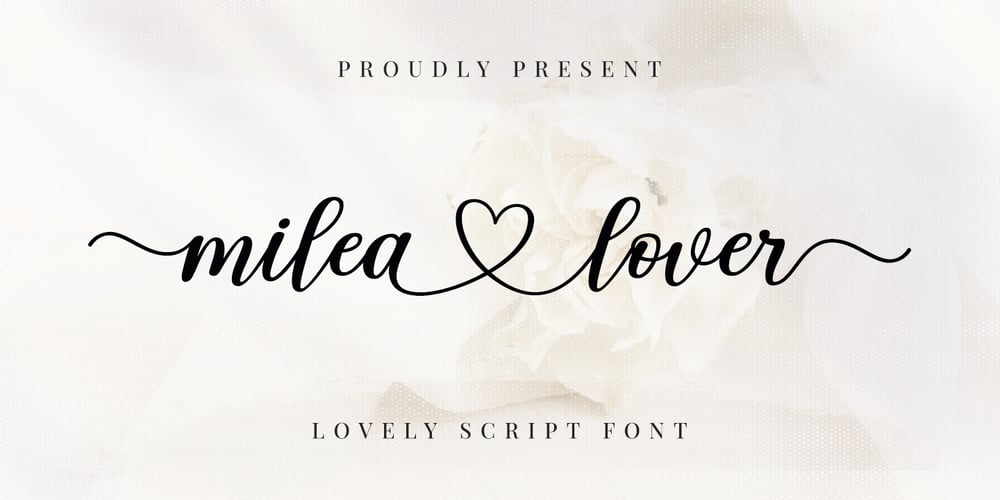
Milea lover Font Family was designed by M Akmal and published by Mega Type. Milea lover contains 1 styles and family package options. Milea Lover is a beautiful script font with an irregular baseline. Milea Lover comes with a feminine and trendy style that gives a touch of love to your design projects.Milea Lover looks very beautiful for branding, logo, wedding invitations, greeting cards, fashion, book covers, posters, labels, quotes and other romantic projects.Have fun using Milea Lover!!!I really hope you enjoy it!Feel free to follow, like and share.Thank you so much for checking out my shop!